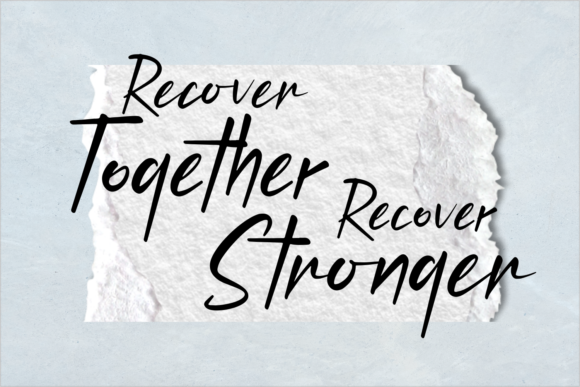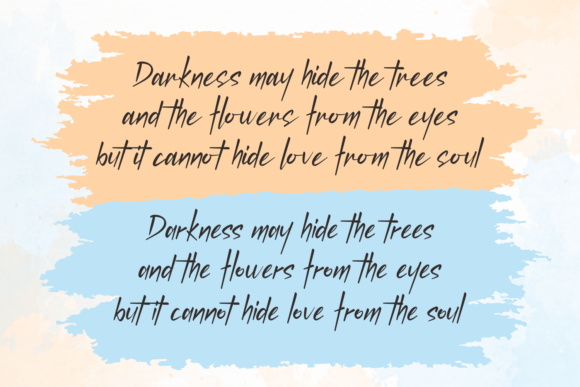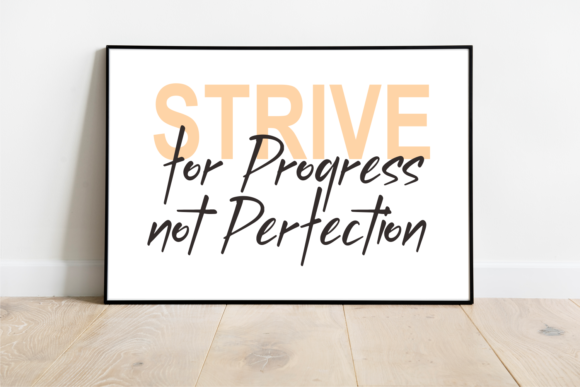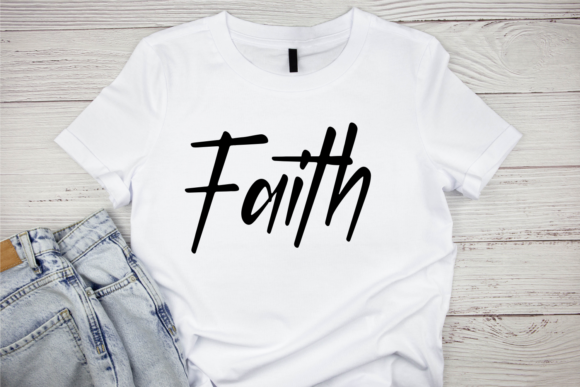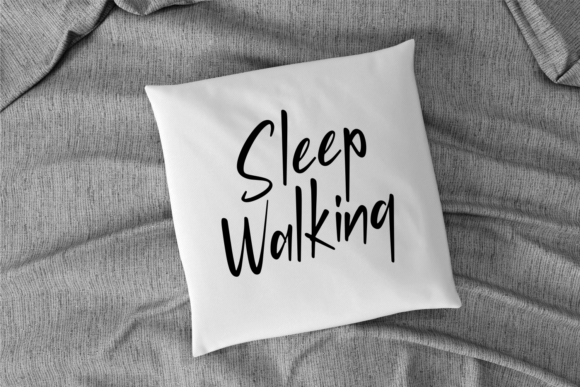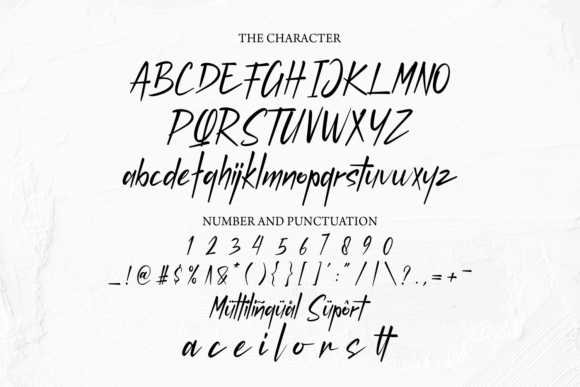
Introduction to Slick Buttery Font
As a designer, you know the feeling of being stuck in a creative rut. You’re working on a project, but the font just isn’t clicking. That’s where the Slick Buttery Font comes in – a free-flowing script font that’s perfect for adding a touch of elegance to your designs. Whether you’re creating packaging for a new product or designing an invitation card for a special event, this font is sure to elevate your work.
The Slick Buttery Font is a valuable addition to any designer’s toolkit. Its beautiful and balanced character makes it a great choice for a wide range of creative projects, from event posters to flyers. And with its transparent background, you can easily overlay it on top of other design elements to create a cohesive look. Plus, it’s a free download, making it an accessible design resource for designers of all levels.
Key Features of Slick Buttery Font
- Features a transparent background, making it easy to integrate with any design
- Includes a range of characters, including uppercase and lowercase letters, numbers, and punctuation
- Designed with a unique, modern aesthetic that’s perfect for contemporary designs
Honest Review: Slick Buttery Font
I recently came across the Slick Buttery Font, and I have to say, it’s a fantastic addition to any design resource. The moment I saw it, I knew it would be perfect for my next creative project.
What works well with the Slick Buttery Font is its versatility. It’s available for free download, which is a huge plus for designers like me who are always on the lookout for high-quality fonts without breaking the bank. The font is also incredibly easy to use, thanks to its transparent background, making it a breeze to work with in any design software.
The Slick Buttery Font is perfect for creating eye-catching headings and titles. It’s perfect for those who want to add a touch of sophistication to their designs. Here are some of its key features:
However, I do have to mention that the Slick Buttery Font may not be the best choice for body text. It’s a bit too bold and attention-grabbing for that purpose. ⚠️
Overall, I’m thoroughly impressed with the Slick Buttery Font. It’s a fantastic design resource that’s sure to elevate any creative project. With its high-quality design and transparent background, it’s a must-have for any designer. ✨
Using in Creative Projects
The Slick Buttery Font is a high-quality design resource that can be used in various creative projects, such as logos, business cards, and brochures. It’s ideal for designers looking for a unique and modern font style.
Tips for Getting the Most Out of Slick Buttery Font
To get the most out of the Slick Buttery Font, use it in combination with a transparent background to create a modern and sleek design. Experiment with different font sizes and colors to find the perfect look for your creative project.
The Slick Buttery Font is commonly used in the following design projects:
- Website design and development